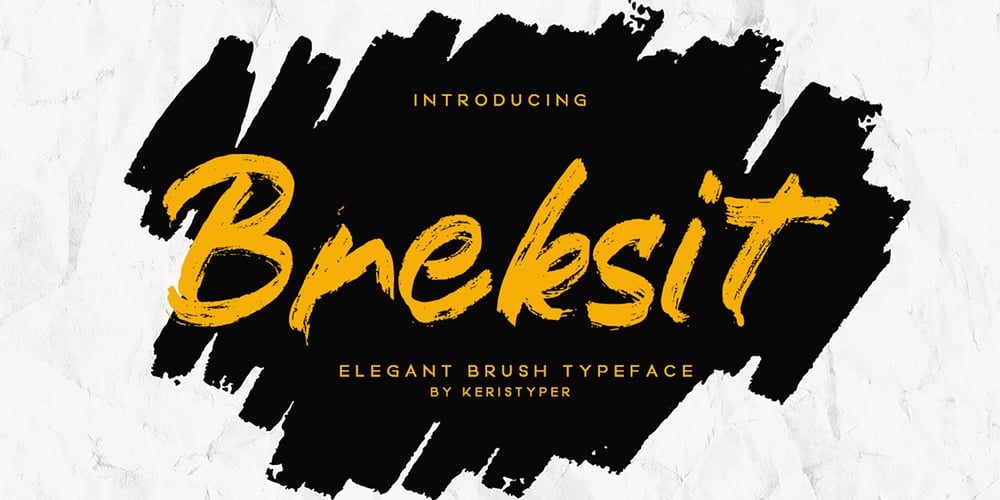
Breksit Brush Font Family was designed by Tezar Tantular and published by Keristyper Studio. Breksit Brush contains 1 styles and family package options. Introducing Breksit font made from natural brush hand-drawn look, with adventure concept and bold character. This Font is perfect for traveling and adventure design, badges, logos, posters, branding, packaging, signage, book cover.Multilingual support: Afrikaans, Albanian, Catalan, Danish, Dutch, English, Estonian, French, Finnish, German, Icelandic, Indonesian, Italian, Malay, Norwegian, Portuguese, Spanish, Swedish, Zulu, and many more.What’s Included : Web Fonts Standard & Multilingual glyphs Ligature Works on PC & Mac Simple installations Accessible in Adobe Illustrator, Adobe Photoshop, Adobe InDesign, and even work on Microsoft Word. Hope you enjoy our font!